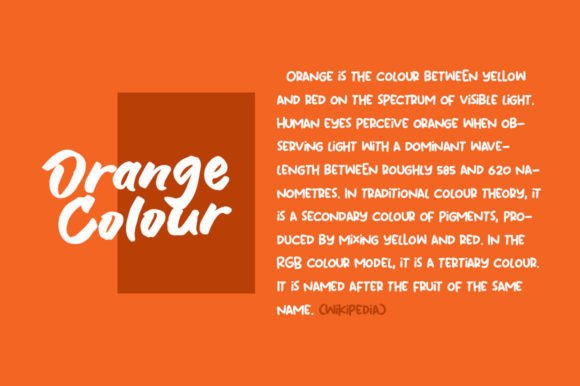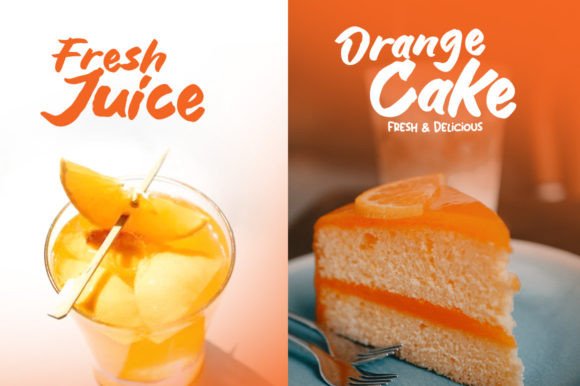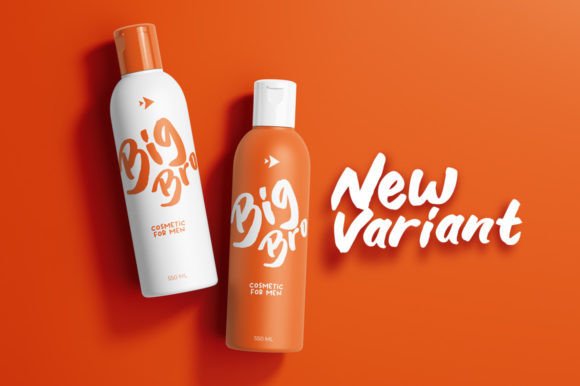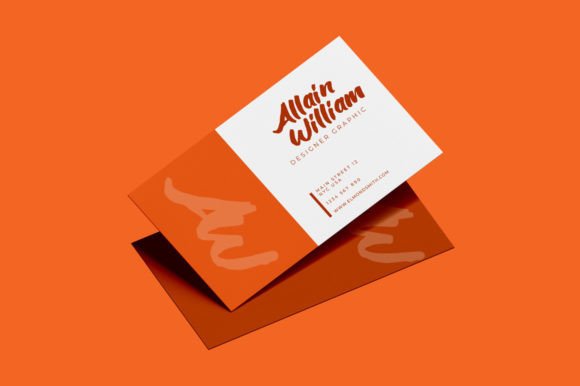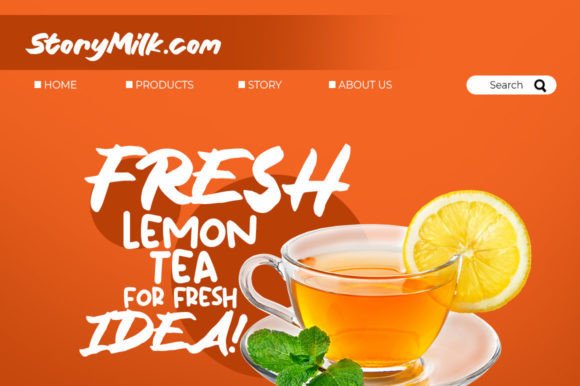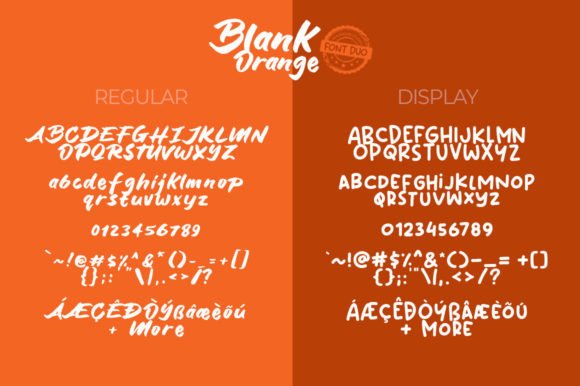
Unleashing Your Creativity with Blank Orange Duo Font
Do you ever find yourself stuck in a creative rut, struggling to come up with the perfect design for your latest project? I know I do. But then, something magical happens – you stumble upon the perfect font. For me, that font is the Blank Orange Duo Font, a delightful handwritten duo that adds a touch of whimsy and personality to any design.
Whether you’re working on a poster, logo, magazine cover, or banner, the Blank Orange Duo Font is the perfect tool to bring your vision to life. This versatile font duo is designed to be playful and engaging, making it a valuable addition to any designer’s toolkit. With its unique script and display styles, you’ll be able to create designs that are truly one-of-a-kind.
So why settle for a generic font when you can use the Blank Orange Duo Font to make your designs stand out? With this amazing typeface, the possibilities are endless, and your creativity will soar to new heights.
- Unique Characteristics: The Blank Orange Duo Font features a unique blend of modern and vintage elements, with a distinctive duotone design that adds a touch of sophistication to any design.
Blank Orange Duo Font Review
Overall, I’m quite impressed with the Blank Orange Duo Font. It has a unique and modern aesthetic that can be used for a variety of design projects.
- ✨ Versatility: The Blank Orange Duo Font can be used for both display and body text, making it a great choice for a wide range of applications.
- ✨ Customization: The font includes multiple weight options, which allows designers to customize the look and feel of their project.
- ✨ Unique Design: The font’s modern design and subtle nuances make it stand out from more traditional fonts.
- ⚠️ Limited Character Set: The font’s character set is relatively limited, which may cause issues for designers working on projects that require a wide range of characters.
- ⚠️ Not Ideal for Small Text: Due to its modern design, the font may not be the best choice for small text sizes, as the letters may become difficult to read.
Overall, the Blank Orange Duo Font is a solid choice for designers looking for a modern and versatile font. While it has some limitations, its unique design and customization options make it a great addition to any design project.
The Blank Orange Duo Font is a versatile font that can be used in a variety of contexts, including:
- Designing business cards and brochures.
- Creating social media graphics and ads.
- Developing branding and marketing materials.
Great Vibes Font is a beautiful script font that works well for titles, headings, and quotes. It’s ideal for creative projects, such as wedding invitations, art prints, and advertisements. It’s more elegant and refined compared to Blank Orange Duo Font, which has a more playful and casual feel.
Carolyna Pro Font is a modern script font that’s perfect for high-end branding, luxury packaging, and fashion designs. It’s more sophisticated and polished than Blank Orange Duo Font, which makes it suitable for formal and professional projects. Carolyna Pro Font is also highly customizable, making it a great choice for designers who want more control over their typography.